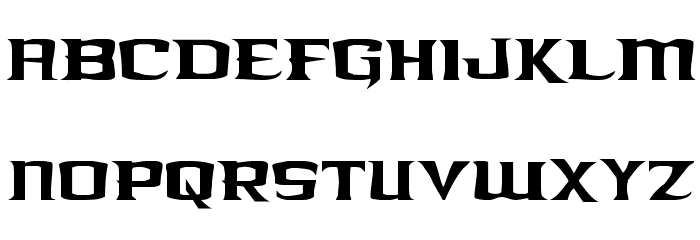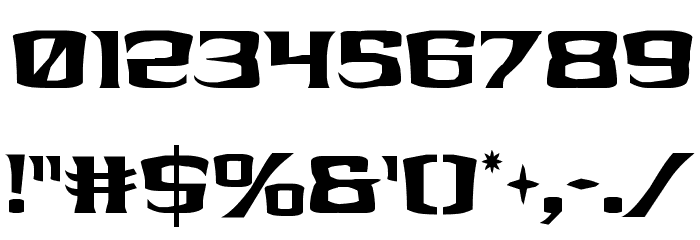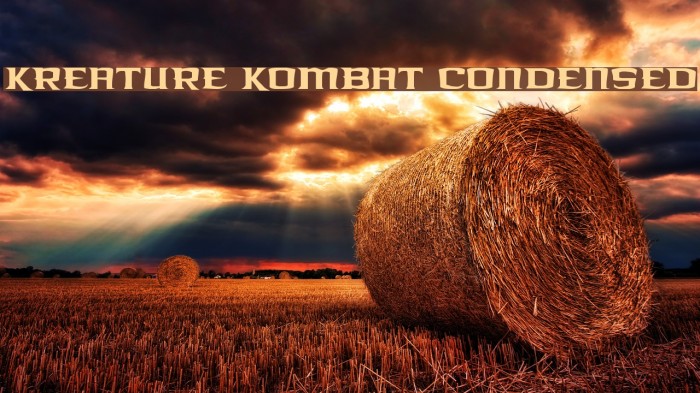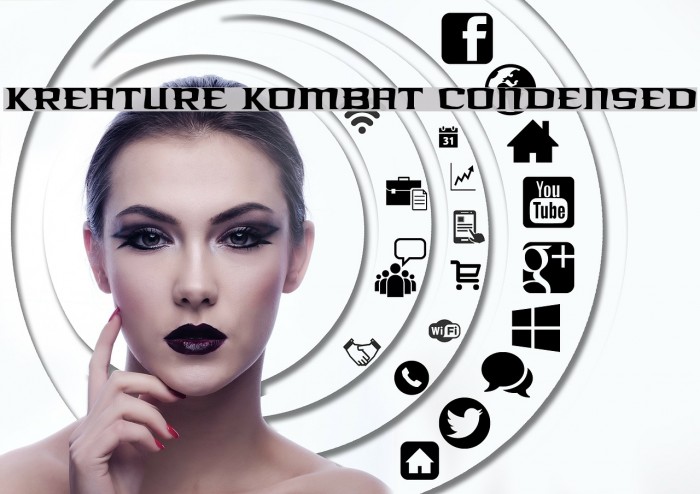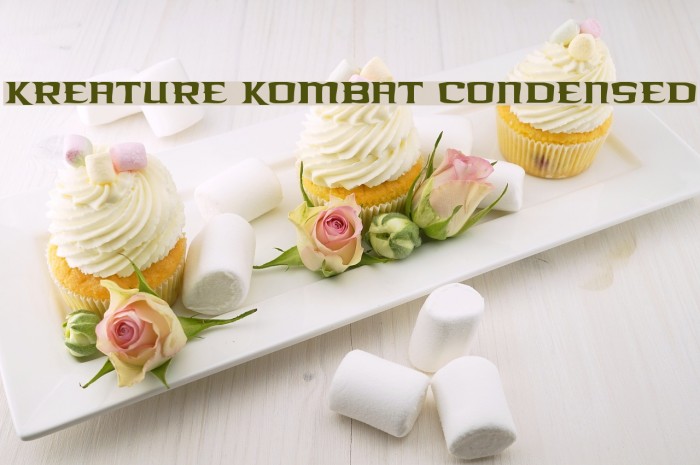
Kreature Kombat Condensed Font
This font features a bold and aggressive style with sharp, angular edges and a condensed form. The uppercase and lowercase letters maintain a consistent height, giving it a uniform appearance. The strokes are thick, with a medium contrast between the thick and thin parts, adding to its striking visual impact. The numerals and special characters follow the same design principles, ensuring a cohesive look across all characters. The font's unique design makes it stand out, with a modern and edgy aesthetic that is both eye-catching and memorable.
A bold, condensed font with sharp, angular edges and a modern, aggressive style.
- Proposed Projects: Ideal for video game titles, movie posters, branding for edgy products, or any project requiring a bold, impactful typeface.
- Overall Style: Modern, Edgy